Starting a small business or launching a start-up is already a high-stakes game. You need to win trust quickly, communicate clearly, and build an identity that lasts. That’s where clean logo fonts come in. A simple yet professional typeface makes your brand look credible, forward-thinking, and ready for growth.
Clean logo fonts aren’t just about style—they’re about clarity. In a noisy world, minimalist typography cuts through distractions and speaks to your audience with confidence. Whether you’re printing packaging, designing a website, or launching on social media, the right font ensures your brand is remembered.
When designers choose fonts for start-ups, three things matter most:
Minimalist sans serifs and modern serifs are the sweet spot for start-up brands. They balance professionalism with approachability, making them perfect for small businesses that want to look serious but not boring.
Ignazio is a bold yet refined sans serif font that thrives in logo design. Its smooth curves and structured lines make it a perfect match for brands that want a clean, confident identity. Start-ups in fintech, SaaS, or wellness packaging will love how Ignazio adapts to both digital and print needs.
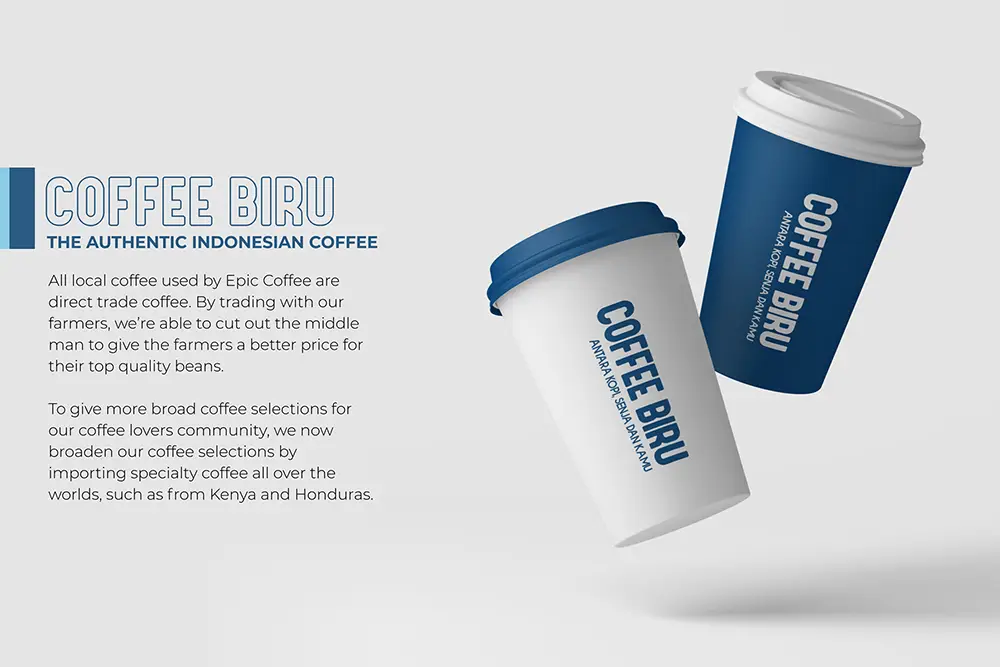
True to its name, Bolde commands attention. It’s a clean logo font that radiates strength while keeping things minimalist. Small businesses often struggle to balance simplicity with impact—Bolde solves that problem. Use it for packaging headlines, logos, and storefront signage.
Though designed with energy, Quinoss is surprisingly versatile. Its modern form makes it an excellent option for start-ups targeting active lifestyles, fitness, or eco-friendly products. Clean and professional, Quinoss looks futuristic yet timeless on both packaging and digital assets.
Byte Sharp blends minimalism with forward-thinking tech vibes. It’s the kind of clean logo font that makes start-ups feel instantly “future-ready.” Perfect for digital-first businesses, app creators, or packaging that needs a sleek, modern edge.
Neobique proves that clean doesn’t have to mean plain. This serif font blends modern elegance with minimalist structure, making it a dream choice for small businesses in fashion, cosmetics, and premium lifestyle branding. If your packaging needs sophistication, Neobique delivers.
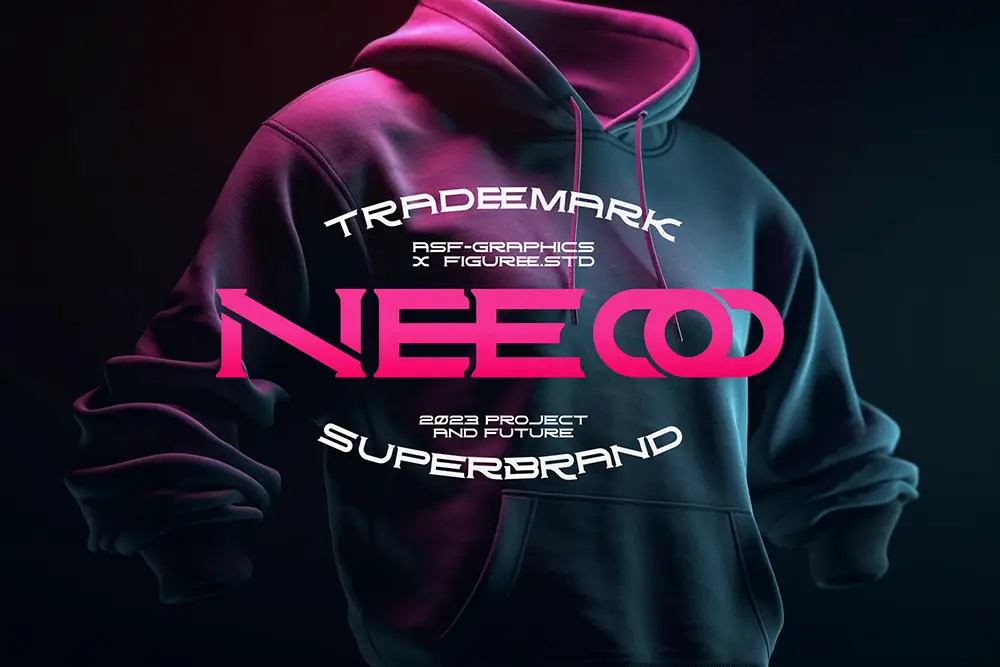
Kastroz combines vintage charm with modern precision. As a luxury serif, it works beautifully for small businesses that want to appear premium without losing simplicity. From coffee packaging to skincare boxes, Kastroz signals authority and timeless appeal.
A start-up’s survival depends on perception. Customers don’t always buy the best product—they buy the brand that feels reliable. Clean logo fonts signal:
This trust translates directly into sales and brand loyalty. According to 99designs, a logo is often the first impression customers have of your business. Choosing the right font ensures that first impression is unforgettable.
One thing we’ve seen over and over is this: clean logo fonts outperform decorative ones for small businesses. While quirky fonts may grab attention, minimalist typefaces build credibility.
As branding expert Jeff Bezos once said:
“Your brand is what other people say about you when you’re not in the room.” — Jeff Bezos
The right font ensures what people say is “professional,” “trustworthy,” and “future-ready.” Our advice for start-ups? Invest in a clean logo font family that can scale with your growth. It’s not just design—it’s strategy.
Minimalist typography isn’t a trend—it’s a strategy. For small businesses and start-ups, choosing clean logo fonts is the fastest way to look professional and future-ready.
Don’t let poor typography hold your packaging and brand identity back. Design with clarity, grow with confidence, and let fonts do the heavy lifting for your brand.